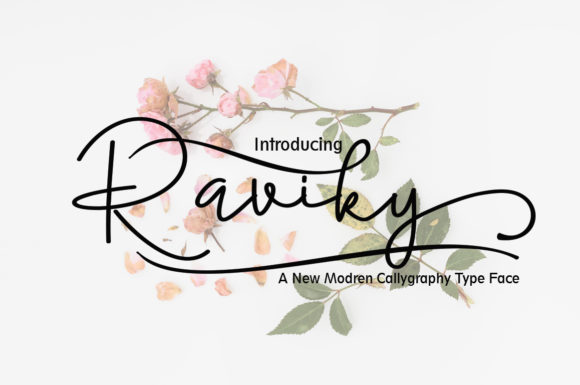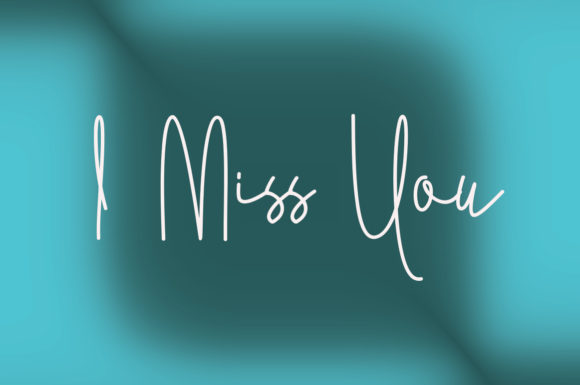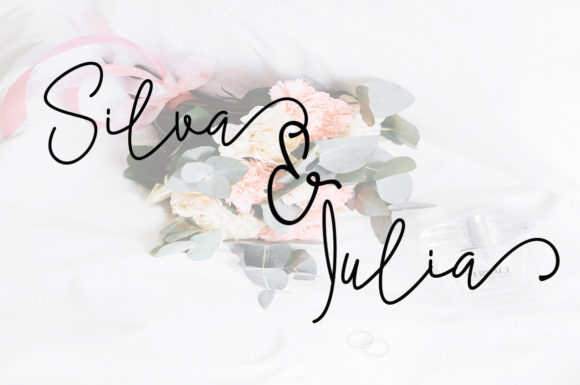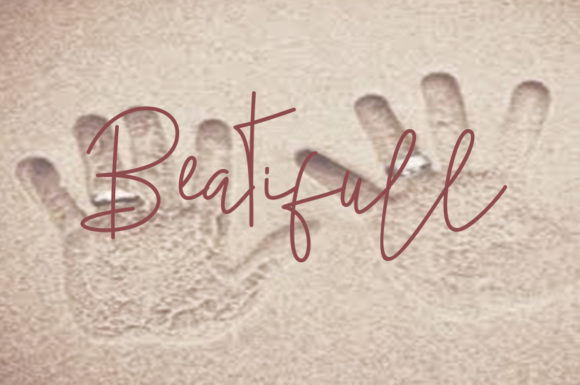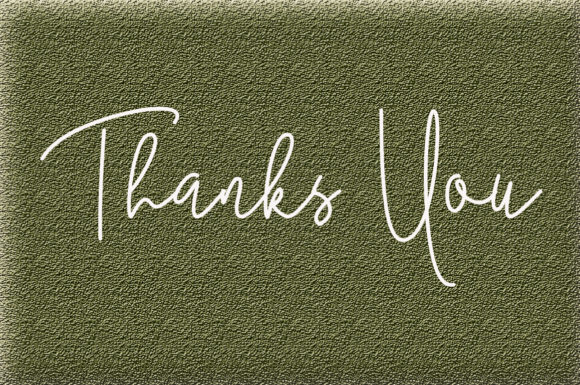
Script Fonts Raviky Font 0 145 FacebookTwitterPinterestWhatsApp Raviky Font Poster 2 Raviky Font Poster 3 Raviky Font Poster 4 Raviky Font Poster 5 About Raviky Font Raviky is a bold and unique handwritten font with playful swashes. Fall in love with its authentic charm and use it for any design project that needs a romantic touch. DOWNLOAD NOW